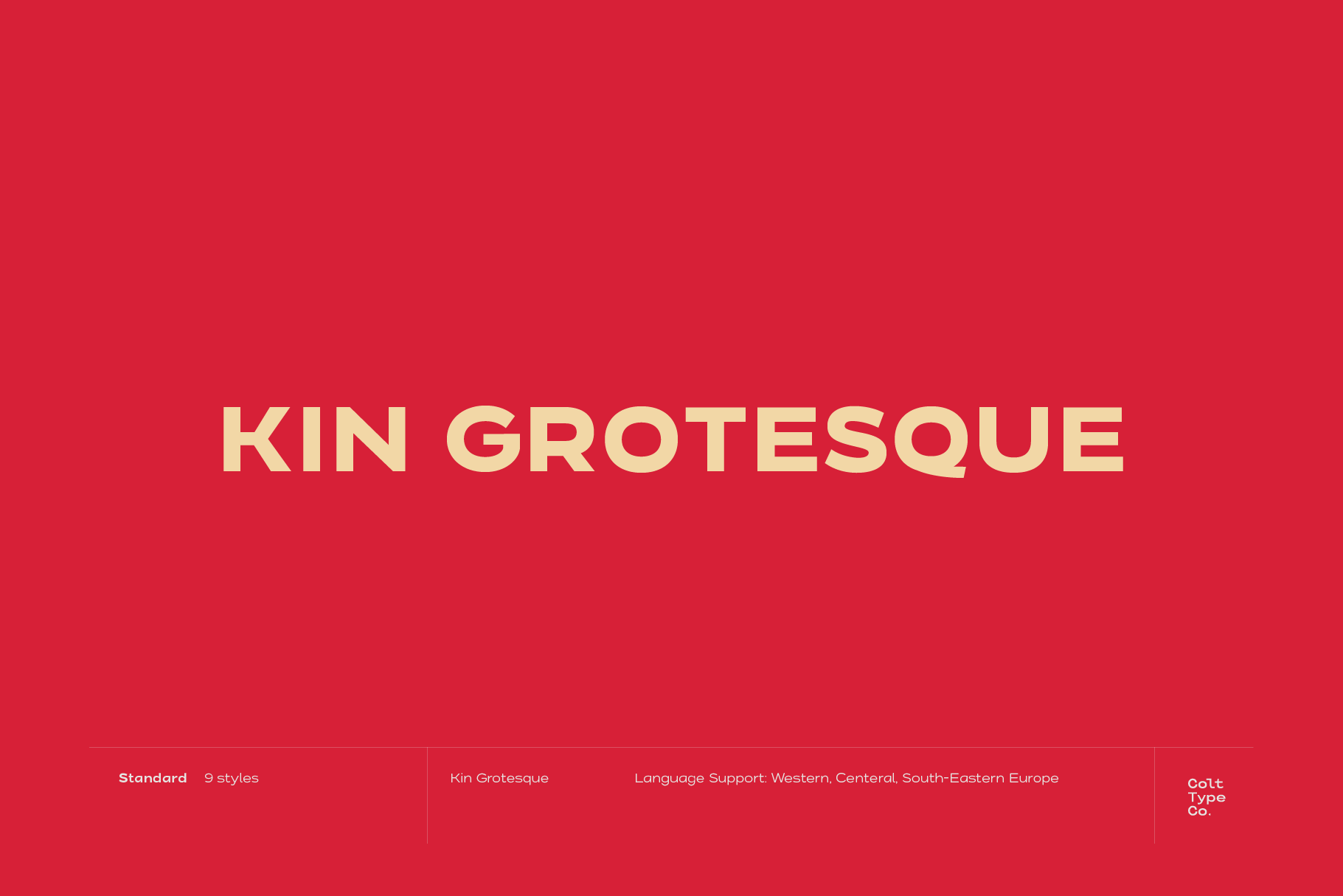
Kin Grotesque 100 Italic
Made for ideas with something to say.
A versatile type family for distinctive, confident design.
Good typography gives words a voice before they have even been read. This specimen shows how the family handles longer text, rhythm and hierarchy alongside its display styles.